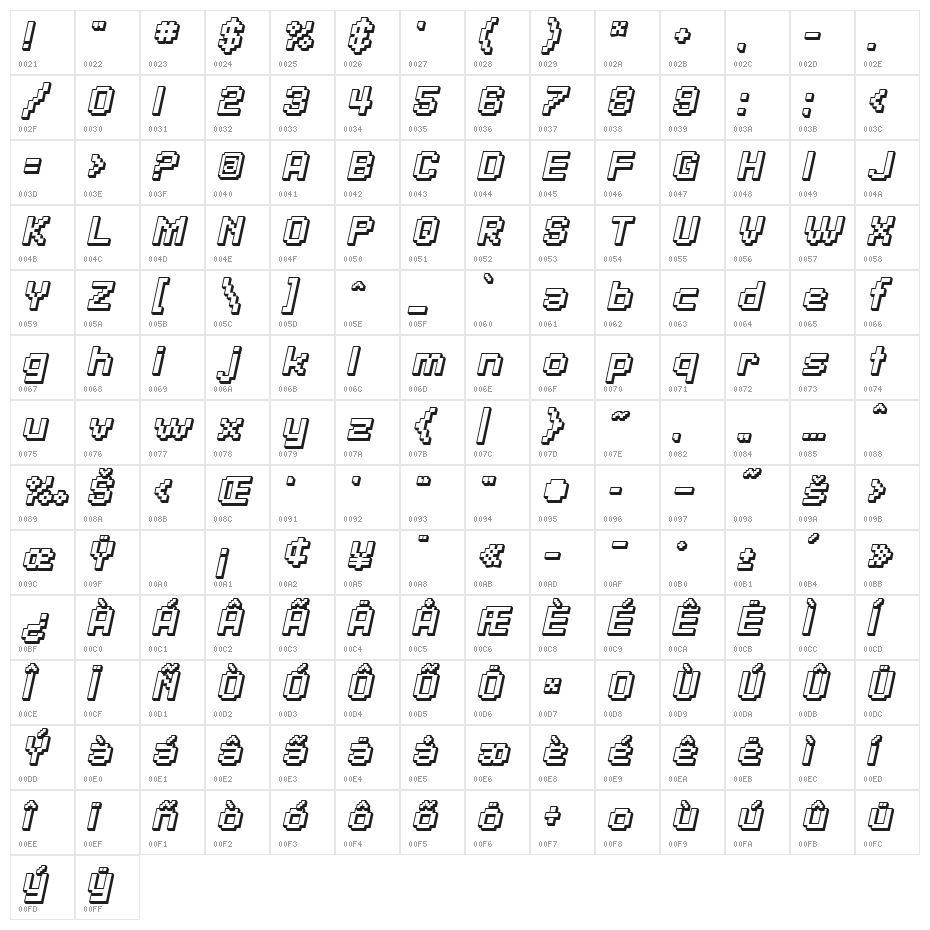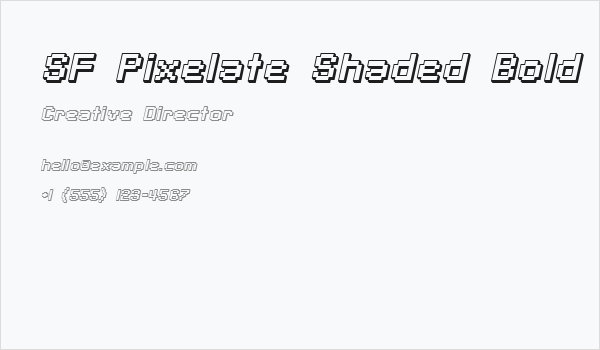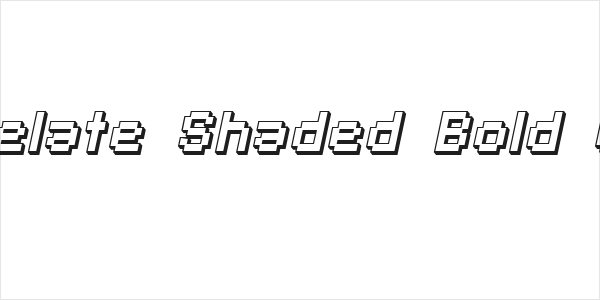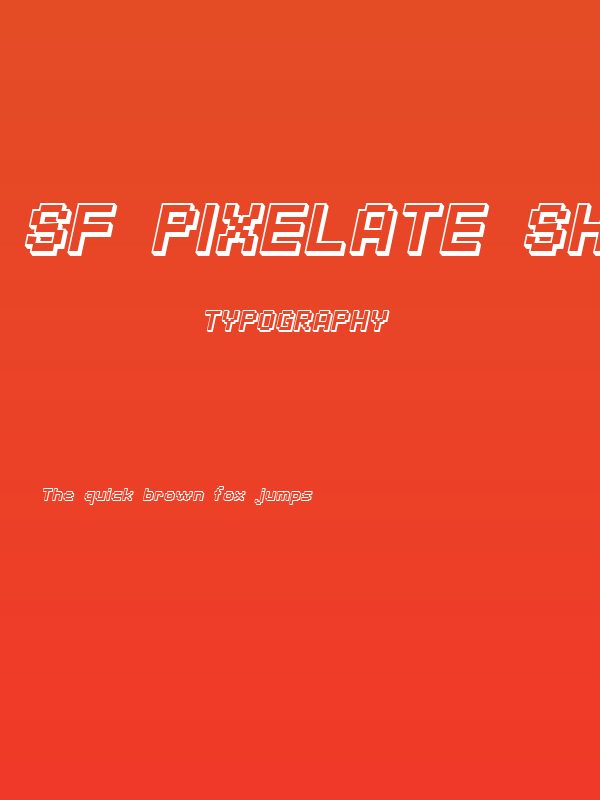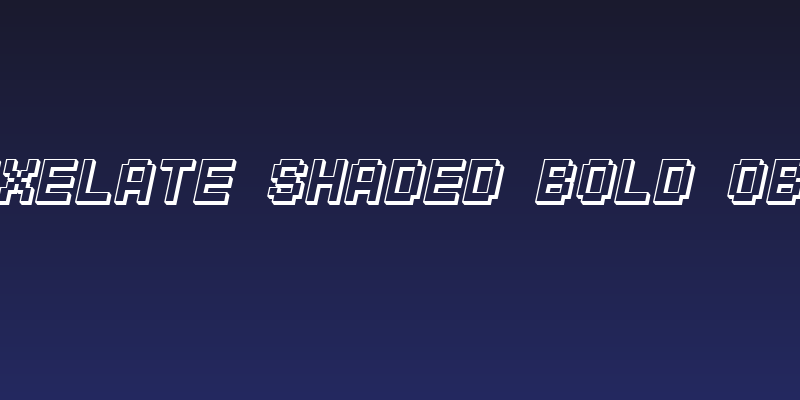
SF Pixelate Shaded Bold Oblique Font
SF Pixelate Shaded Bold Oblique Description
This font features a bold, pixelated design with a shaded effect that gives it a three-dimensional appearance. The characters are oblique, adding a dynamic and forward-leaning style. Each letter and number is constructed with a blocky, geometric form, reminiscent of retro video game graphics. The shading provides depth, making the characters stand out against a variety of backgrounds. The font includes a full set of uppercase and lowercase letters, numbers, and a selection of special characters, all maintaining the same pixelated and shaded style.
| Overall Style | Retro, Decorative |
| Proposed Projects | Ideal for video game designs, retro-themed posters, digital art projects, and any creative work requiring a nostalgic, pixelated look. |